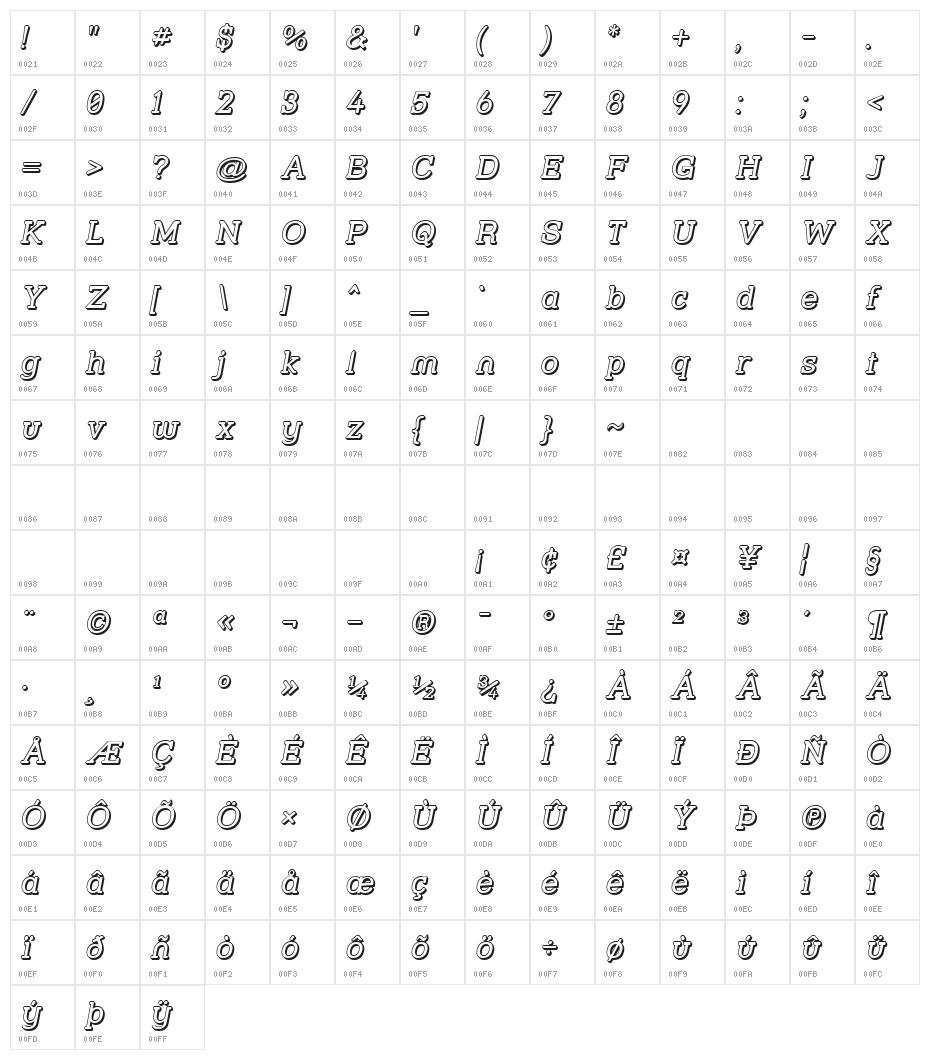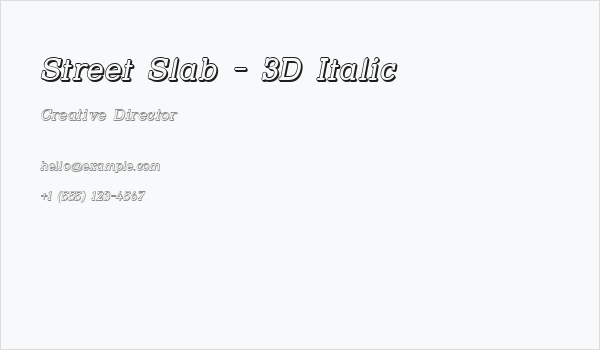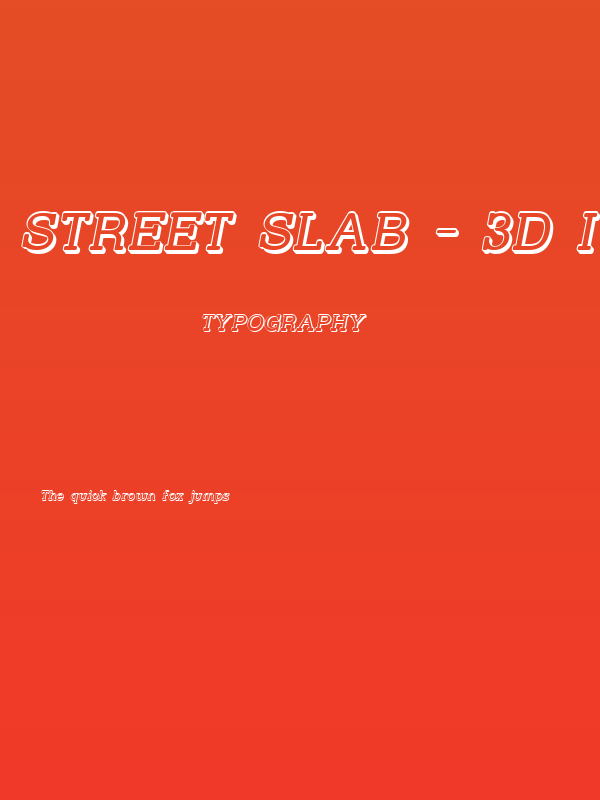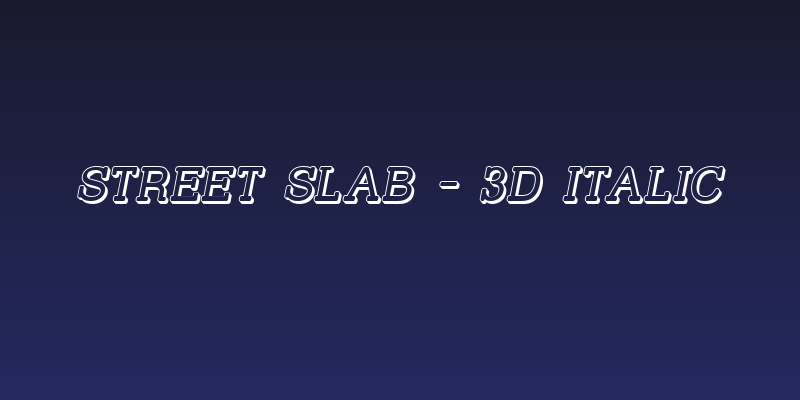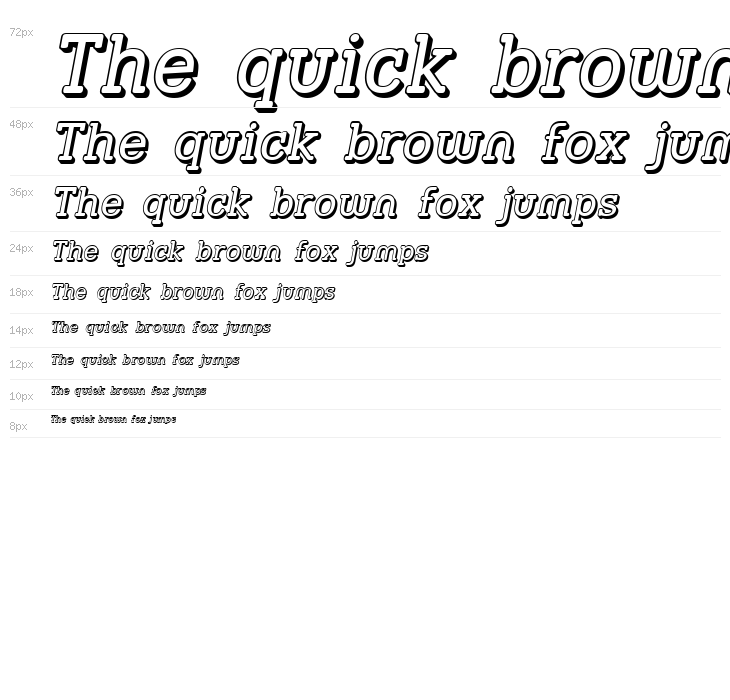
Street Slab - 3D Italic Font
Street Slab - 3D Italic Description
This font features a bold, three-dimensional slab serif style with italicized characters. The letters are outlined, giving them a distinct shadow effect that enhances their 3D appearance. The uppercase and lowercase letters maintain a consistent style, with the serifs adding a touch of classic elegance. The numerals and special characters are designed to match the overall aesthetic, making them suitable for a cohesive design. The italic slant adds a dynamic feel, making the font suitable for attention-grabbing headlines or titles.
Proposed ProjectsIdeal for posters, logos, and headlines where a bold and dynamic presence is needed.